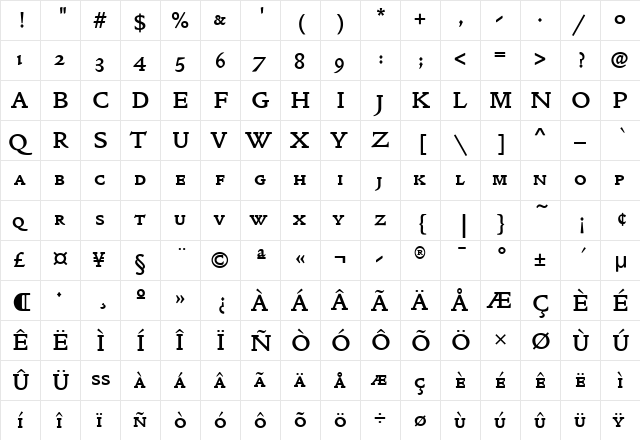
GoldenTypeSCITC Bold
Design Context for GoldenTypeSCITC Typeface
GoldenTypeSCITC takes a measured approach to typography — its balanced proportions and neutral character make it a reliable workhorse for both digital and print work. Its bold stroke weight gives it real presence on the page.